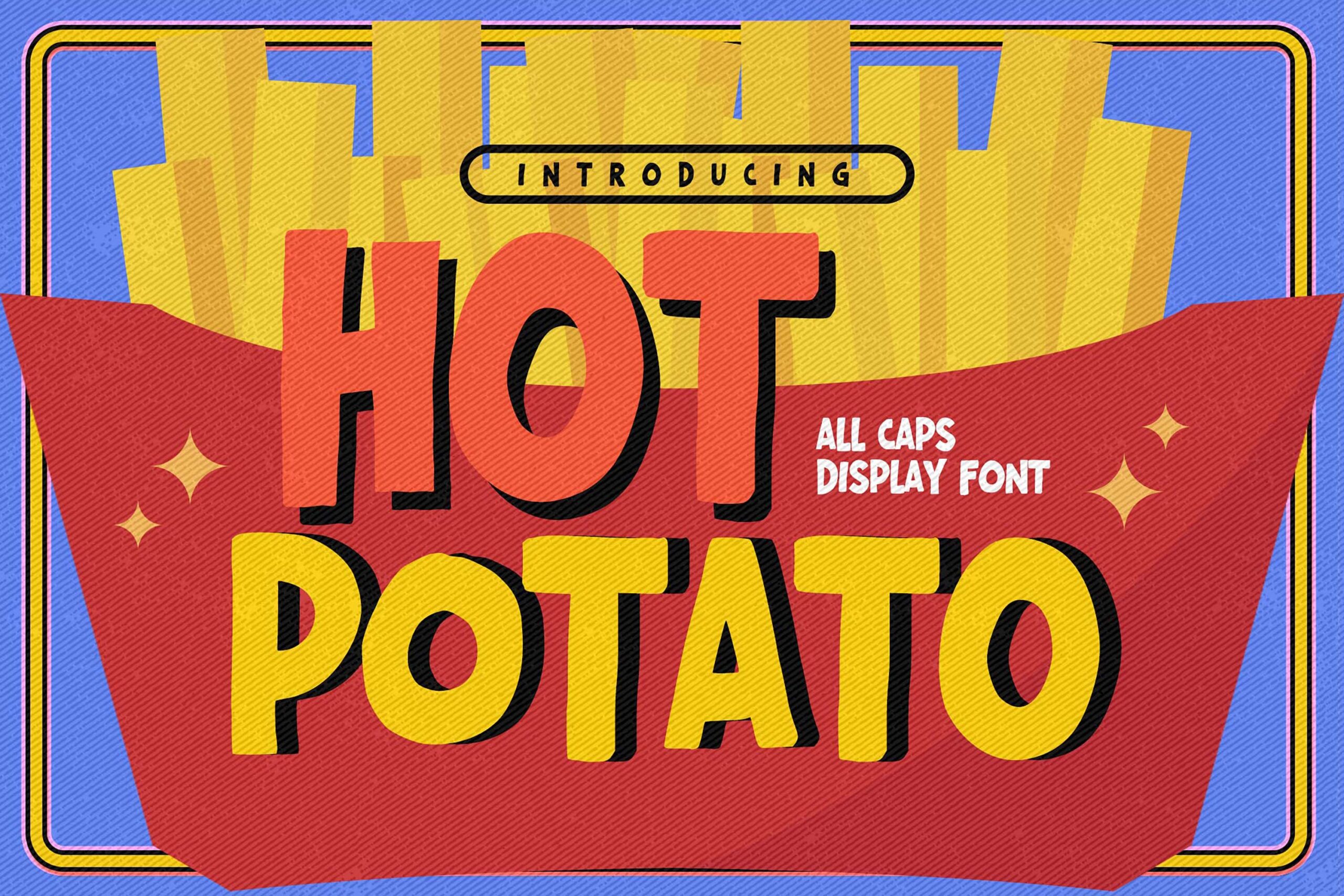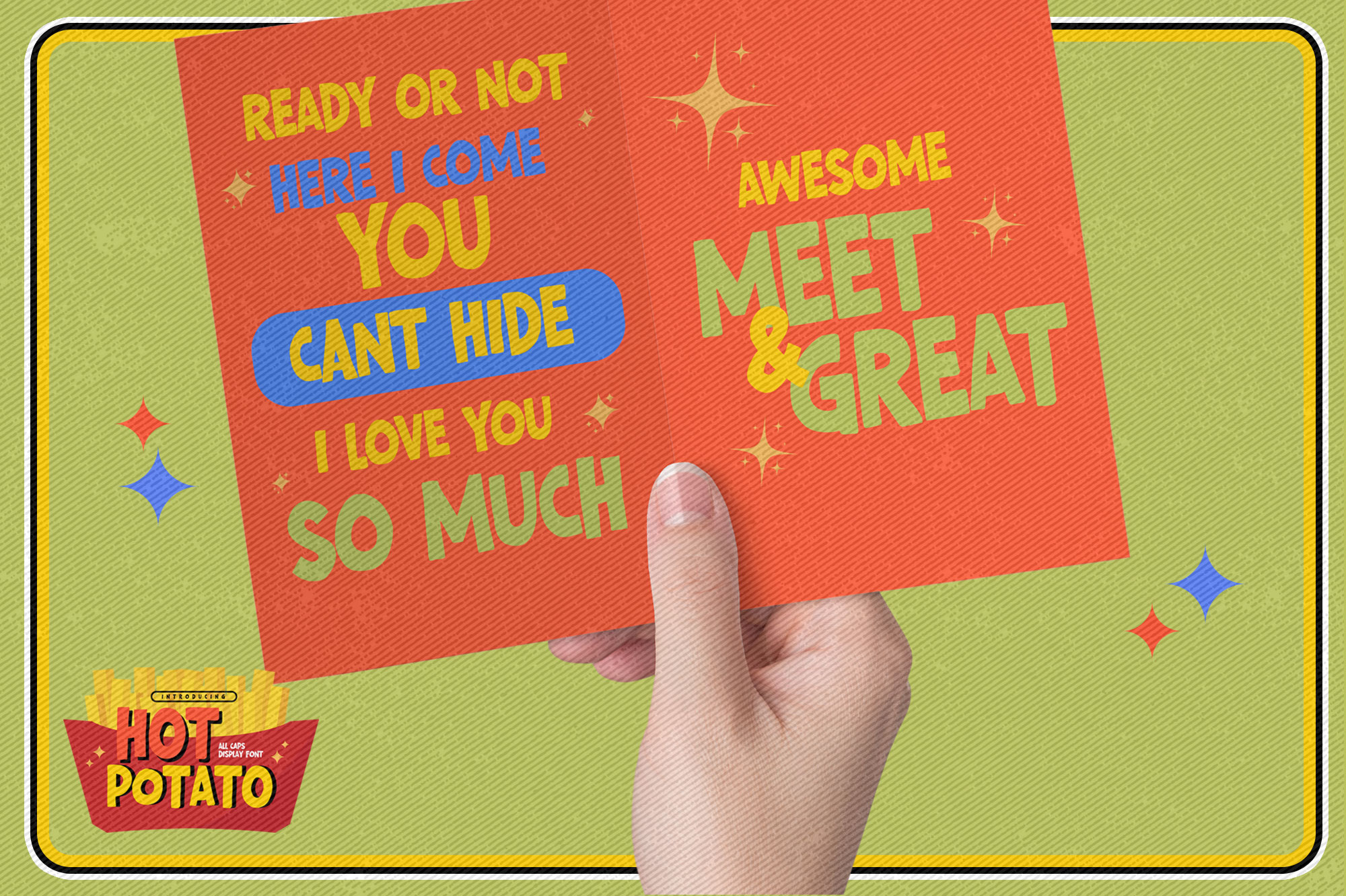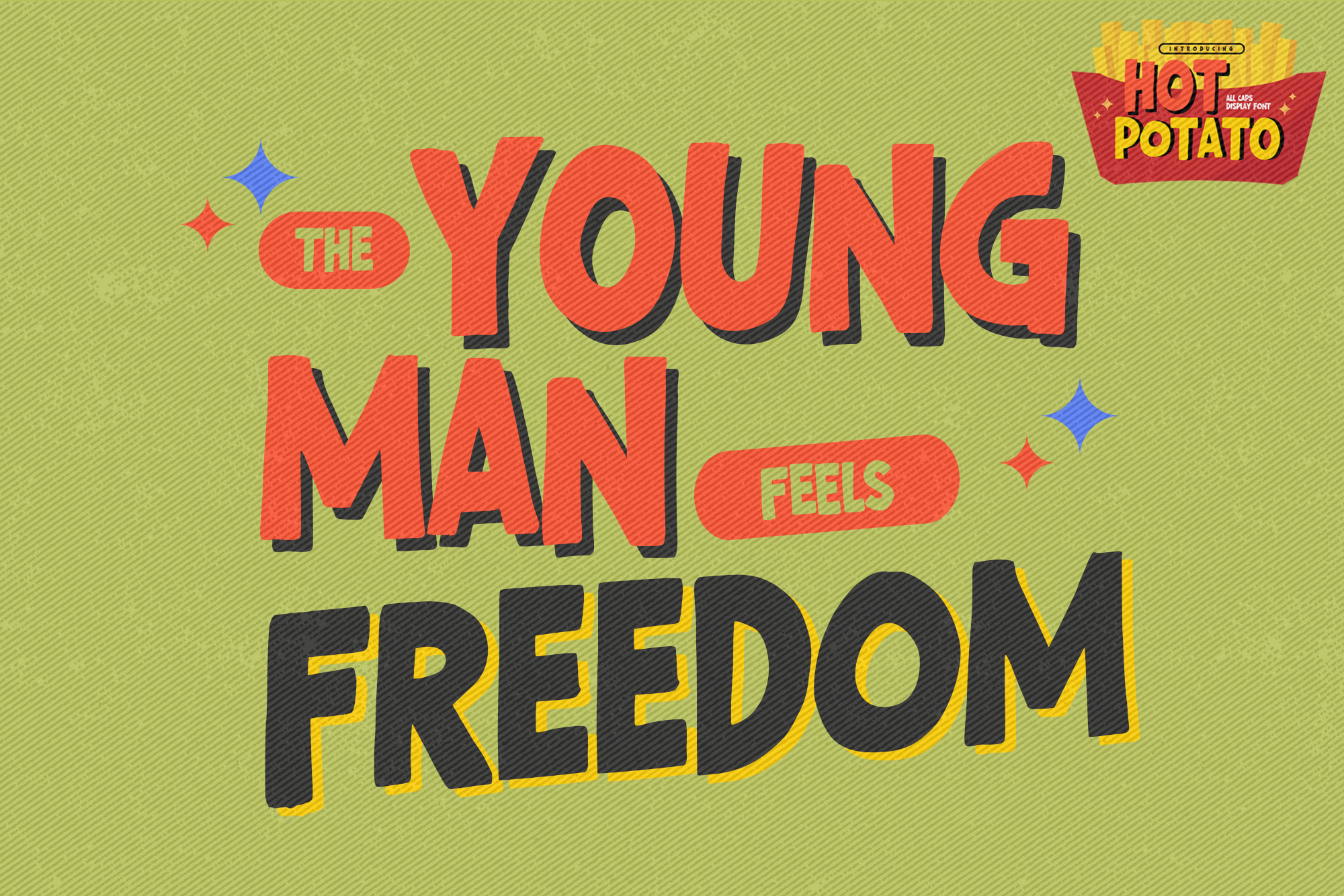
Hot Potato – All Caps Display Font is an Authentic display Font that is written casually and quickly.
That is why Hot Potato has a cool, and unique characteristic more natural look.
Hot Potato Perfect for designs, branding projects, Logo design, Quotes product packaging and another Project that require allcaps font.You can activate Alternates glyphs OpenType panel.